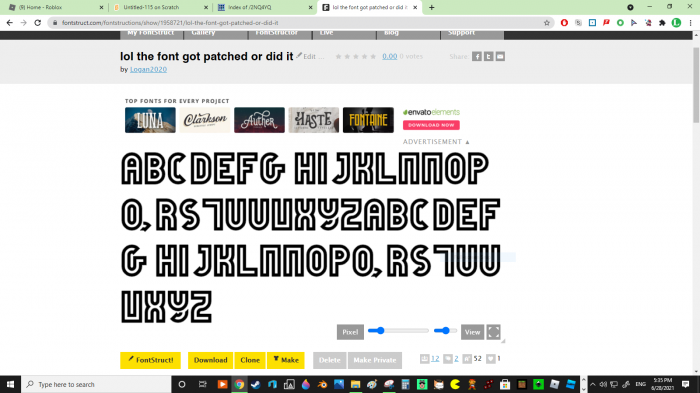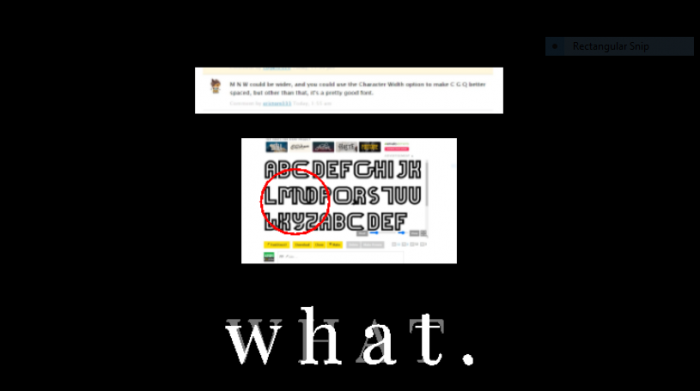
That one brick gets corrupted every time you save (Likely from redundant instructions + a move instruction being the very last one in the brick…
Which has been happening since it's inclusion, I should add…
i wanted to check on the corrupted font and found this, it got patched.
M N W could be wider, and you could use the Character Width option to make C G Q better spaced, but other than that, it's a pretty good font.
i did what eric tom's comment said.. and it didnt go well...
I think what erictom333 meant was to show the letter's width (Menu > View > Letter Width) then manually setting it to the desired width…